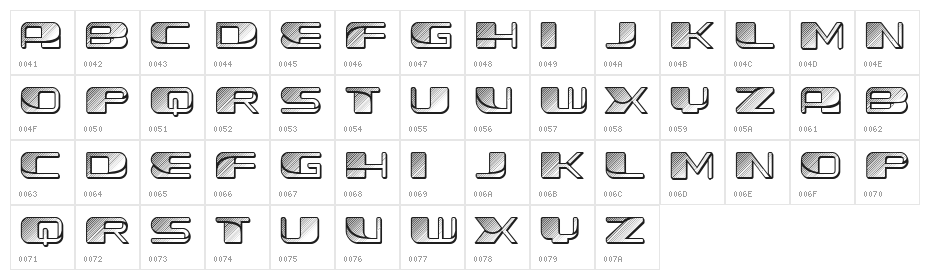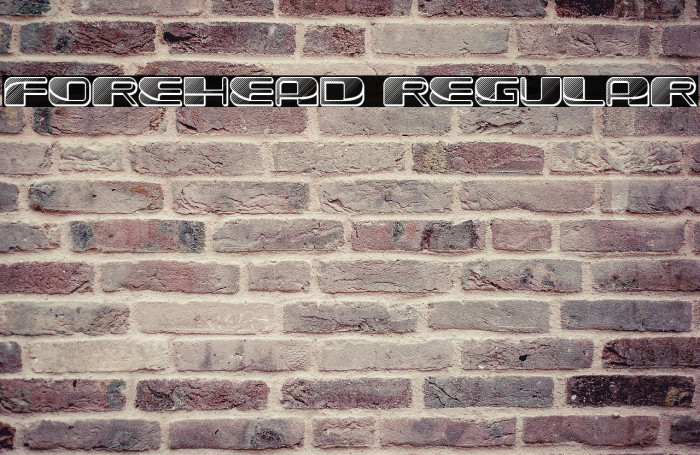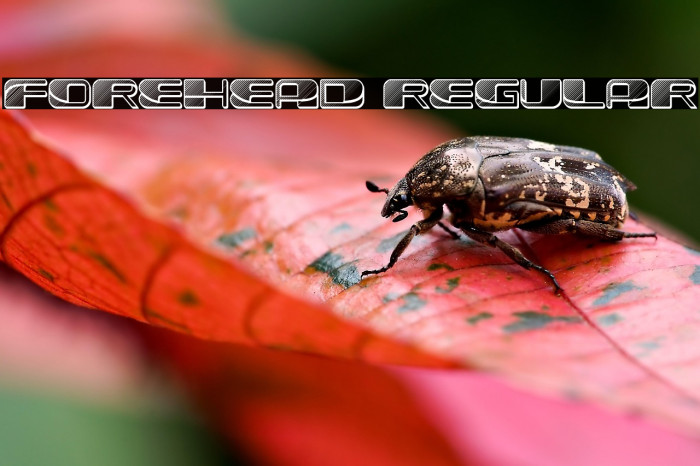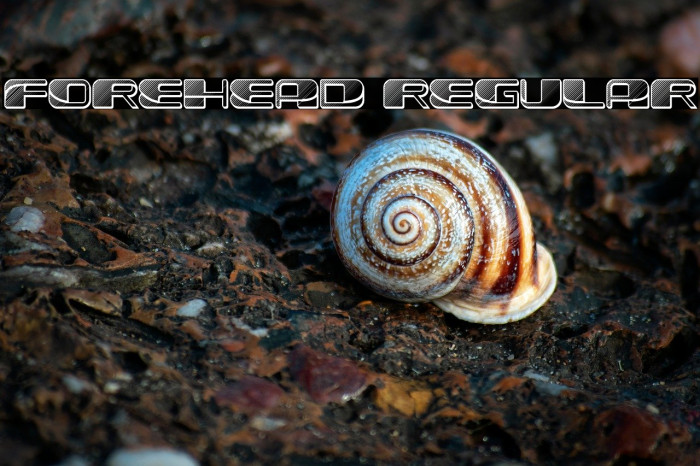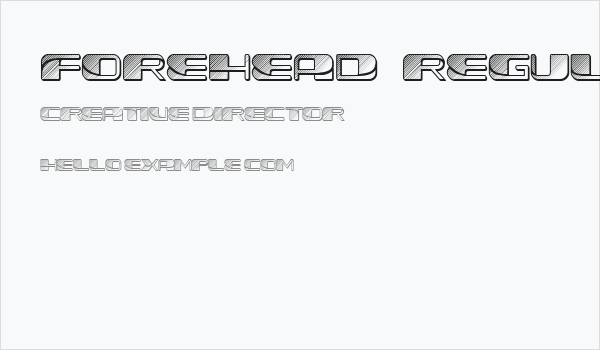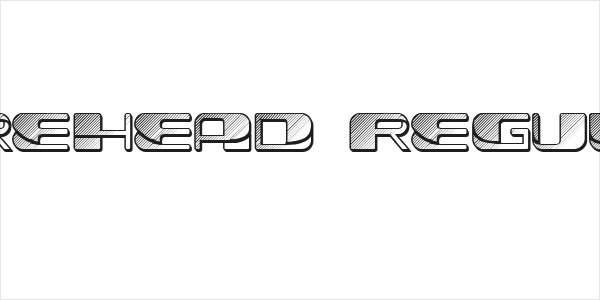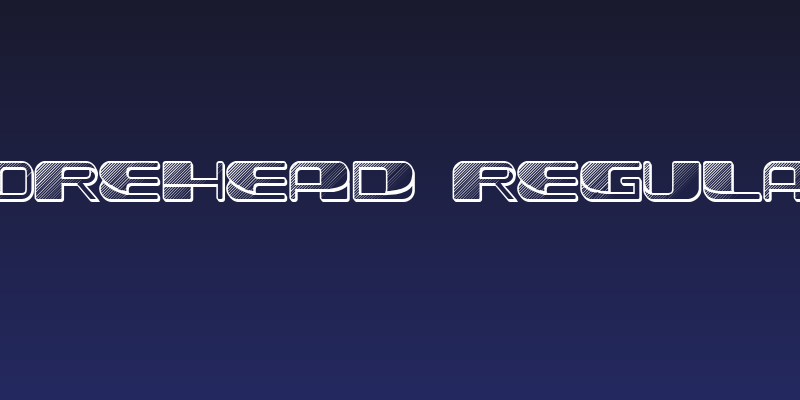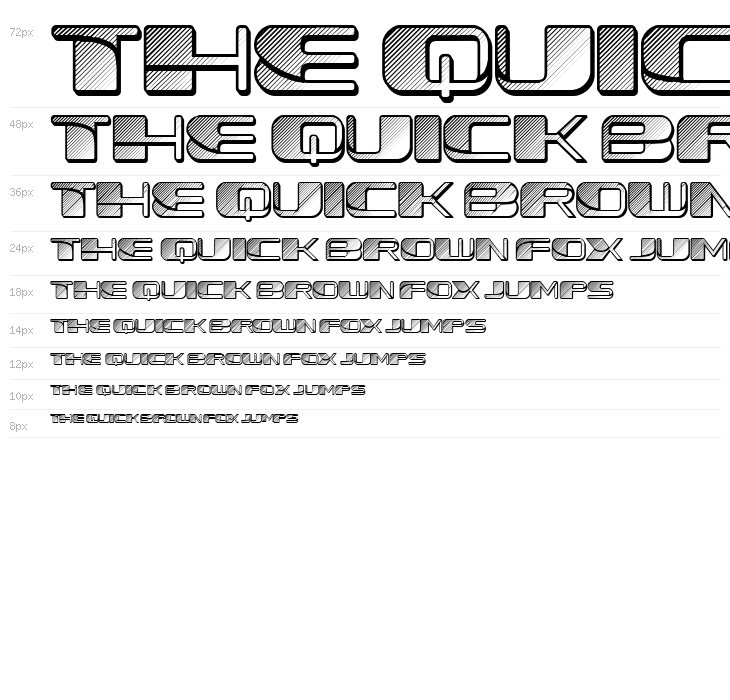
Forehead 1 Regular Font
Forehead 1 Regular Description
This font features a bold, futuristic design with a distinct 3D effect created by diagonal hatching within each character. The uppercase letters are crafted with sharp angles and clean lines, giving a sense of depth and dimension. The style is reminiscent of digital or technological themes, making it ideal for projects that require a modern and edgy look. The characters are evenly spaced, ensuring readability while maintaining a unique visual appeal. The font's geometric structure and bold presence make it suitable for attention-grabbing headlines or logos.
| Proposed Projects | Ideal for technology-themed designs, video game titles, sci-fi posters, and modern branding. |